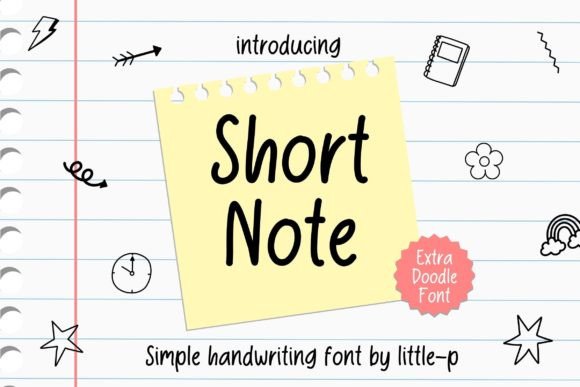
Introducing "Short Note" - the ultimate script font for tattoo quotes that will leave a lasting impression. Created by Issie_Studio, this font is more than just a writing tool. It is a powerful means of self-expression, bringing clarity and elegance to all your projects.
But "Short Note" goes beyond your typical font. It comes with an extra doodle font, available in otf, ttf, png, and svg formats. This unique feature opens up endless possibilities for your creative pursuits. Whether you're working on Cricut projects, crafting inspiring quotes, enhancing Goodnotes and planners, or simply elevating your handwritten notes, "Short Note" is the versatile tool you need.
Not only is this font perfect for individuals, it also caters to the needs of students and teachers alike. Its simplicity and creativity make it a reliable companion for effective communication. With "Short Note," your creations will transform into concise and memorable expressions of style and substance.
Imagine the impact of your tattoo quotes when they're written in this simple and tidy handwriting font. Each stroke exudes elegance and sophistication, creating a truly captivating design. Your message will resonate with others on a deep emotional level, leaving a lasting impression.
Don't settle for ordinary fonts when you can have the best font for tattoo quotes. "Short Note" will take your designs to new heights, making them truly stand out from the crowd. Experience the power of this font and unlock your creativity like never before.